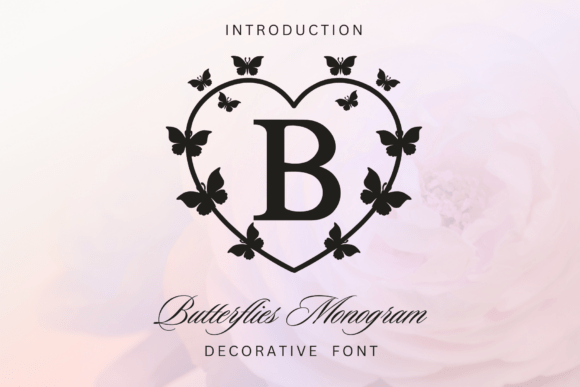
Falling in Love with Butterflies Monogram Font
I’ll never forget the time I was working on a wedding invitation project for a dear friend. I had all the design elements ready – the beautiful floral patterns, the elegant illustrations, and the perfect color palette. But, I was stuck on finding the right font. I wanted something that would add a touch of elegance and whimsy to the invitation. That’s when I stumbled upon the Butterflies Monogram Font. It was love at first sight! 💕
So, what makes Butterflies Monogram Font so special? Let’s dive into the details.
• ✨ Elegant and decorative: This font is perfect for adding a touch of sophistication to any design project.
• ✅ Authentic feel: The font has a unique, hand-crafted feel that makes it stand out from other monogram fonts.
• 💕 Lovely ornaments: The font features beautiful ornaments that can be used to add a touch of whimsy to your designs.
• 🎉 Versatile: From wedding invitations to social media posts, this font can be used for a wide range of design projects.
While I absolutely adore Butterflies Monogram Font, there are a few quirks to keep in mind:
• 🤔 Limited character set: As a monogram font, it’s designed specifically for capital letters and ornaments.
• ⚠️ May require manual kerning: Depending on the design, you may need to adjust the kerning to get the perfect look.
Butterflies Monogram Font was designed with love and care by a talented font designer. The designer’s inspiration came from the beauty of nature, particularly butterflies and flowers. The font is meant to evoke a sense of elegance and whimsy, making it perfect for wedding invitations, stationery, and other design projects.
Is Butterflies Monogram Font suitable for body text? No, Butterflies Monogram Font is designed specifically for headlines and titles.